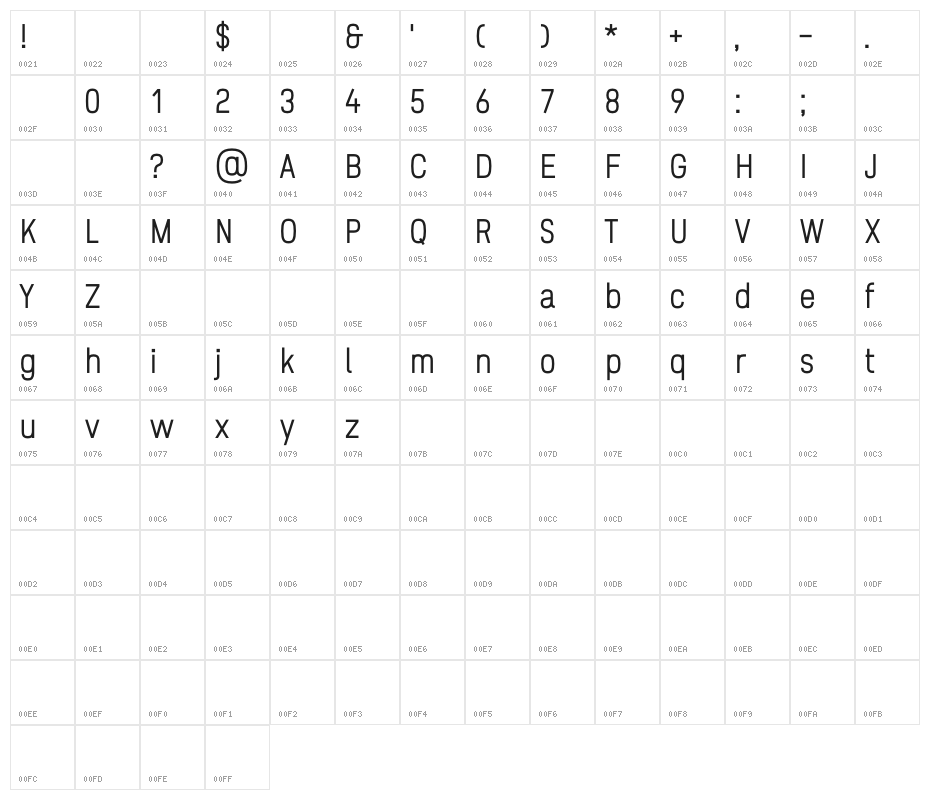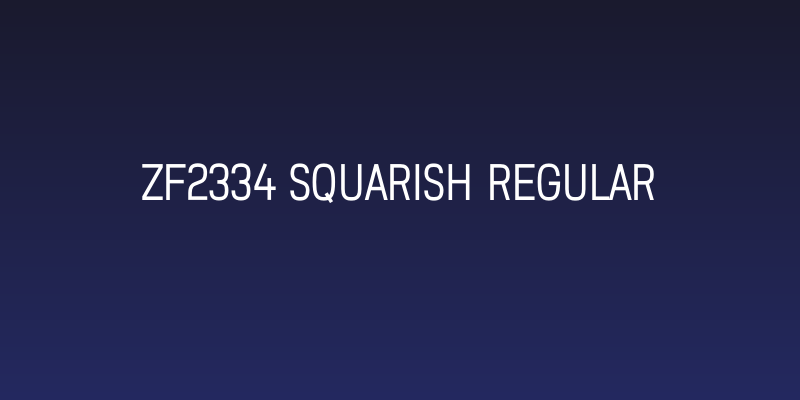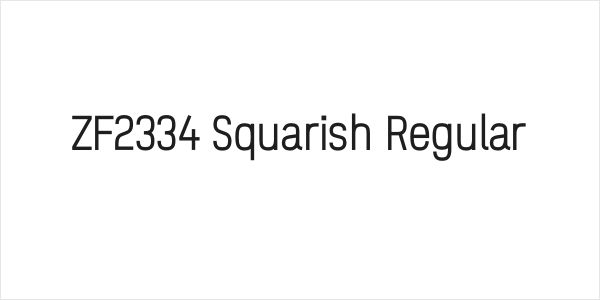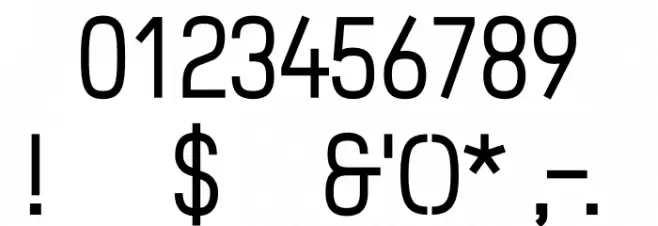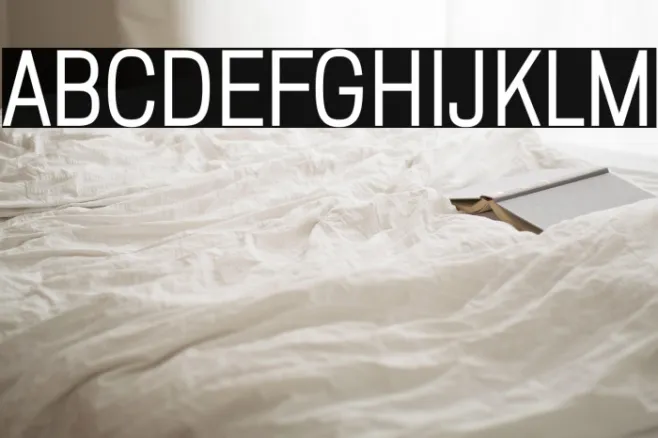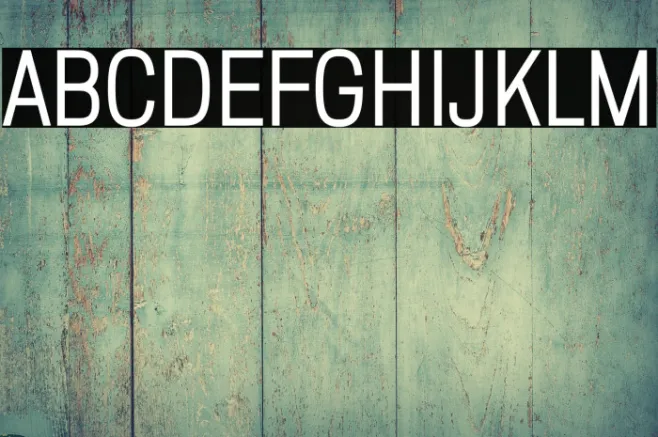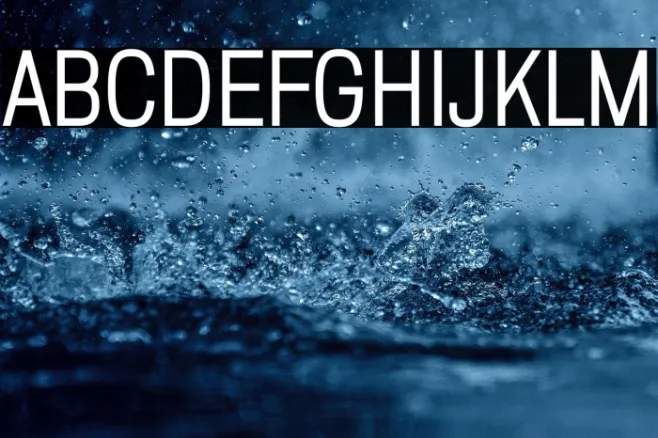
ZF2334 Squarish Regular Font
ZF2334 Squarish Regular Description
This typeface features a clean, geometric design with a modern and minimalistic aesthetic. The characters are constructed with straight lines and right angles, giving them a squarish appearance. The uniform stroke width across all characters contributes to a cohesive and balanced look. The uppercase and lowercase letters maintain a consistent height, enhancing readability. The numerals and special characters are designed to match the overall style, ensuring a seamless integration within any text. This font's simplicity and clarity make it versatile for various design applications.
| Use Case | Headlines, Body text, Logos |
| Proposed Projects | Ideal for digital interfaces, branding, signage, and editorial design where clarity and modernity are essential. |